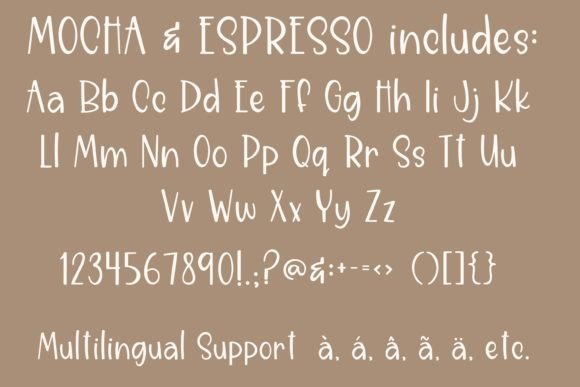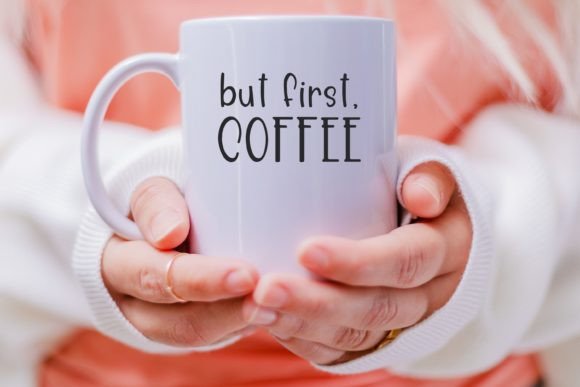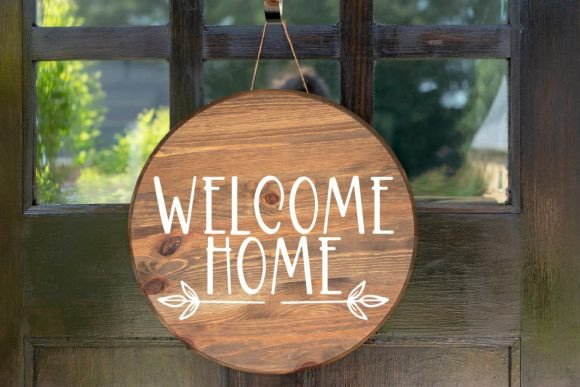
Introduction to Mocha & Espresso Font
Do you remember the thrill of creating a handmade card for a loved one, only to have it bring a smile to their face? It’s moments like these that make crafting truly special. As a designer, you’re likely no stranger to the joy of bringing your creative ideas to life, and the right tools can make all the difference. That’s why we’re excited to introduce the Mocha & Espresso Font, a high-quality, free download perfect for adding a personal touch to your designs.
This charming handwriting font is a must-have for any craft enthusiast, offering a transparent background that makes it easy to work with in your favorite design software. With its playful and fun style, it’s ideal for a wide range of creative projects, from cards and scrapbooking to SVG files and more. Whether you’re a seasoned designer or just starting out, the Mocha & Espresso Font is sure to become a valuable addition to your design resource library.
Key Features of Mocha & Espresso Font
- High-quality, unique design for creative projects, including coffee shop logos, restaurant branding, and more.
- Transparent background option for easy customization and versatility in design.
- Includes 2 unique fonts: Mocha and Espresso, each with its own distinct style and character.
Honest Review: Mocha & Espresso Font
I recently had the chance to work with the Mocha & Espresso Font, and I must say it’s a great addition to any design resource collection. The font is a high-quality, modern script that adds a touch of elegance to any creative project.
One of the things that works well with this font is its versatility. It can be used for a variety of applications, from branding and marketing materials to wedding invitations and social media graphics. The font also includes a transparent background, making it easy to work with in design software.
Here are some of the key features of the Mocha & Espresso Font:
- High-quality, modern script design
- Transparent background for easy use in design software
However, there are a few limitations to consider: ⚠️ The font may not be as suitable for text-heavy projects, and it can be a bit challenging to read in small sizes.
Overall, I’m impressed with the Mocha & Espresso Font. It’s a great addition to any design resource collection, and it’s definitely worth considering for your next creative project. ✨
Tips for Getting the Most Out of Mocha & Espresso Font
Use the font on a transparent background to give your design a clean and modern look. Experiment with different font sizes and styles to add visual interest to your creative project. You can also combine the font with other design elements, such as images and graphics, to create a unique and eye-catching design.
The Mocha & Espresso Font is a versatile design resource that can be used in a variety of creative projects, including logos, brochures, and business cards. It’s also a great choice for social media graphics and advertising materials. With its high-quality design and free download option, it’s an ideal font for designers of all levels.